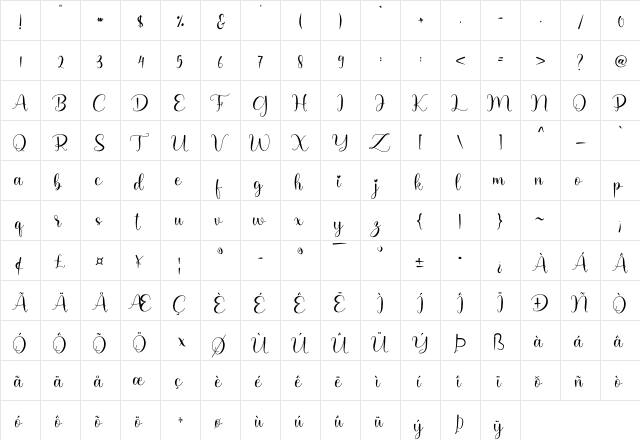
Sweet Couple Regular
| Designer | Nissa Nana |
Design Context for Sweet Couple Typeface
Sweet Couple is a composed and adaptable typeface that performs quietly and consistently across a wide range of design contexts.